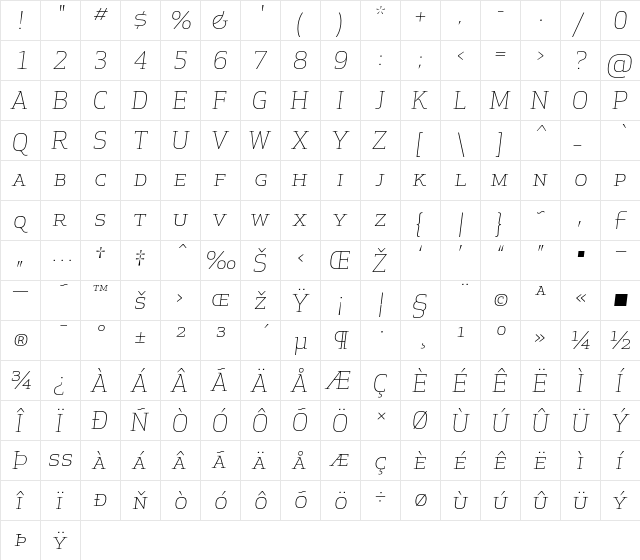
Apex Serif Light Italic Caps Regular Font Preview
Design Context for Apex Serif Light Italic Caps Typeface
Apex Serif Light Italic Caps carries the refined structure of traditional serif typography, with bracketed terminals and considered proportions that communicate credibility and craft. Its italic angle brings a sense of urgency and motion to the letterforms. The delicate stroke weight brings airiness and refinement to layouts.
Pro Tip: Set Apex Serif Light Italic Caps at slightly larger body copy sizes than you would a regular-weight serif to compensate for its delicate stroke contrast.